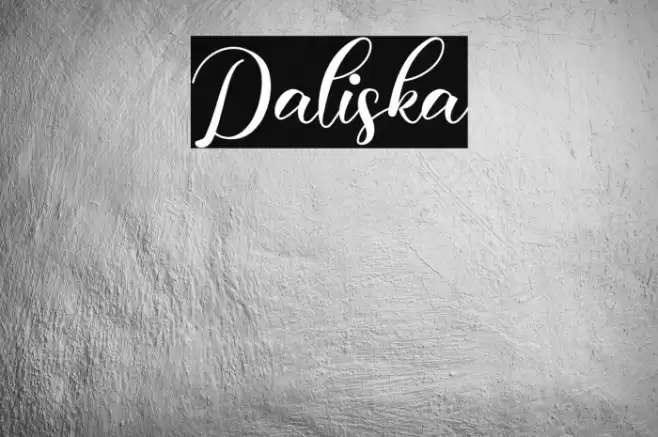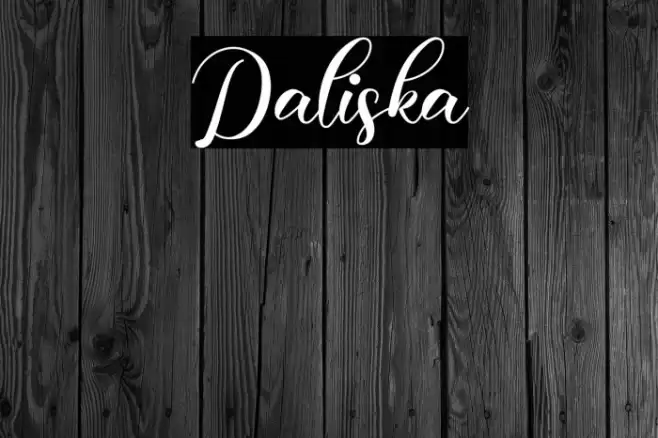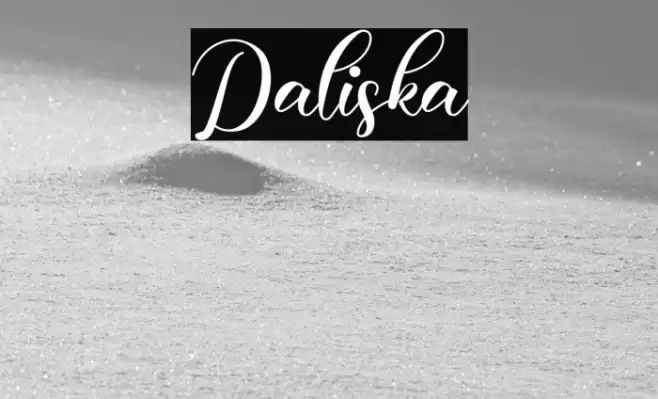
Daliska Font
Daliska Description
This elegant script font features flowing, cursive letterforms with a graceful and sophisticated appearance. The uppercase letters are characterized by their sweeping curves and loops, while the lowercase letters maintain a consistent fluidity, enhancing the font's overall charm. The numerals are designed with a similar flair, ensuring a cohesive look across all characters. Special characters are thoughtfully integrated, maintaining the font's decorative style. The font's delicate strokes and moderate contrast make it suitable for a variety of creative projects.
A graceful script font with flowing, cursive letterforms and elegant curves from Uncategorized fonts.
- Proposed Projects: Ideal for wedding invitations, greeting cards, branding, and elegant logo designs.
- Overall Style: Elegant
- Use Case: Logos, Invitations, Decorative text